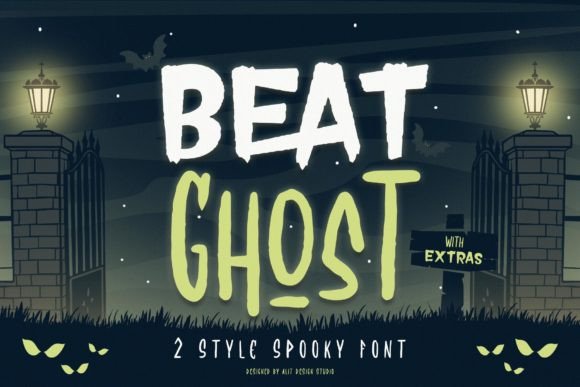
Behold, Beat Ghost Font: The Eerie Masterpiece for Your Haunting Designs!
In the realm of digital artistry, where creativity meets innovation, there exists a font with the power to evoke goosebumps and send chills down your spine. Introducing Beat Ghost Font, the display font that will transform your designs into captivating tales of horror and mystery.
Crafted with meticulous precision by Alit Design, Beat Ghost Font is a chilling work of art, meticulously designed to invoke a sense of unease and intrigue. Its jagged edges and distorted characters dance upon the page, creating an atmosphere of suspense and otherworldly charm.
With Beat Ghost Font at your fingertips, you can unleash your creative prowess and conjure spectral designs that will leave an indelible mark on your audience. From spine-tingling Halloween cards to hair-raising posters, this font possesses the magic to transport your viewers to a realm of eerie enchantment.
But Beat Ghost Font's allure goes beyond mere aesthetics. It is a font imbued with versatility, seamlessly adapting to a multitude of digital canvases. Whether you're conjuring chilling invitations, designing haunting social media posts, or crafting hair-raising logos, Beat Ghost Font will effortlessly elevate your projects to new heights of horror and intrigue.
Furthermore, Beat Ghost Font is meticulously PUA encoded, ensuring effortless access to a treasure trove of glyphs and ligatures. This opens up a world of creative possibilities, empowering you to weave intricate patterns and mesmerizing designs with a few simple clicks.
So, embrace the darkness and unleash your creativity with Beat Ghost Font. Let your imagination run wild as you craft designs that will haunt the screens of your audience, leaving them spellbound and longing for more. Join the ranks of those who dare to embrace the eerie and make Beat Ghost Font your weapon of choice for captivating designs that will linger in the minds of your viewers long after they've turned away.